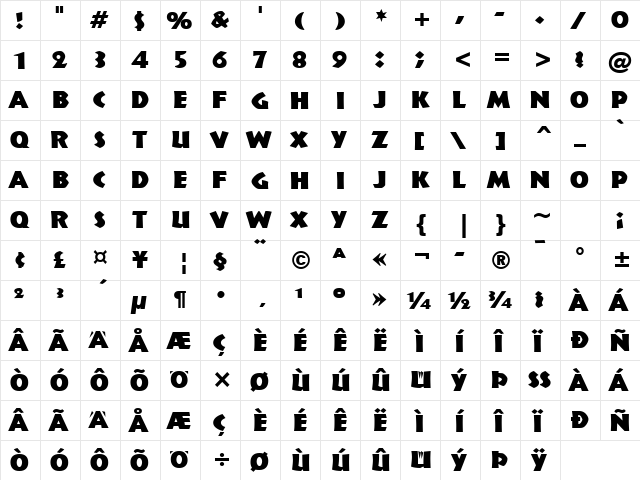
Informal011 Blk BT Black Font Preview
Informal011 Blk BT Black
Design Context for Informal011 Blk BT Typeface
Informal011 Blk BT takes a measured approach to typography — its balanced proportions and neutral character make it a reliable workhorse for both digital and print work.